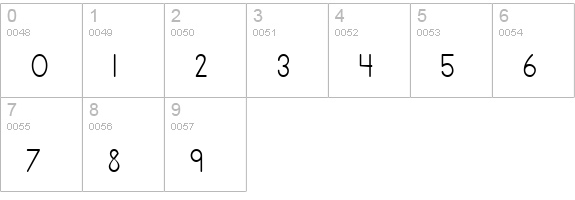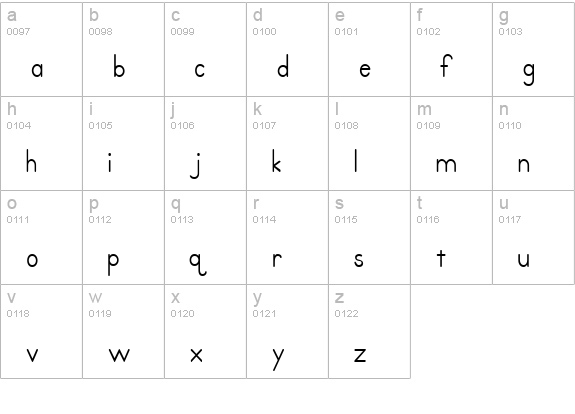
Primer Print Font Details
Introducing Primer Print, a modern and stylish font that exudes sophistication and elegance. This versatile typeface is perfect for a wide range of design projects, from branding to editorial design. Its clean lines and sleek appearance make it a popular choice for those looking to add a touch of class to their work. The best part? Primer Print is available for free download at FontsMarket.com. That's right, you can get your hands on this gorgeous font without spending a penny. So why wait? Elevate your designs with Primer Print today and make a lasting impression with its timeless appeal.